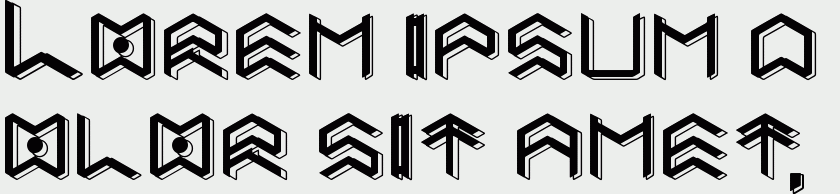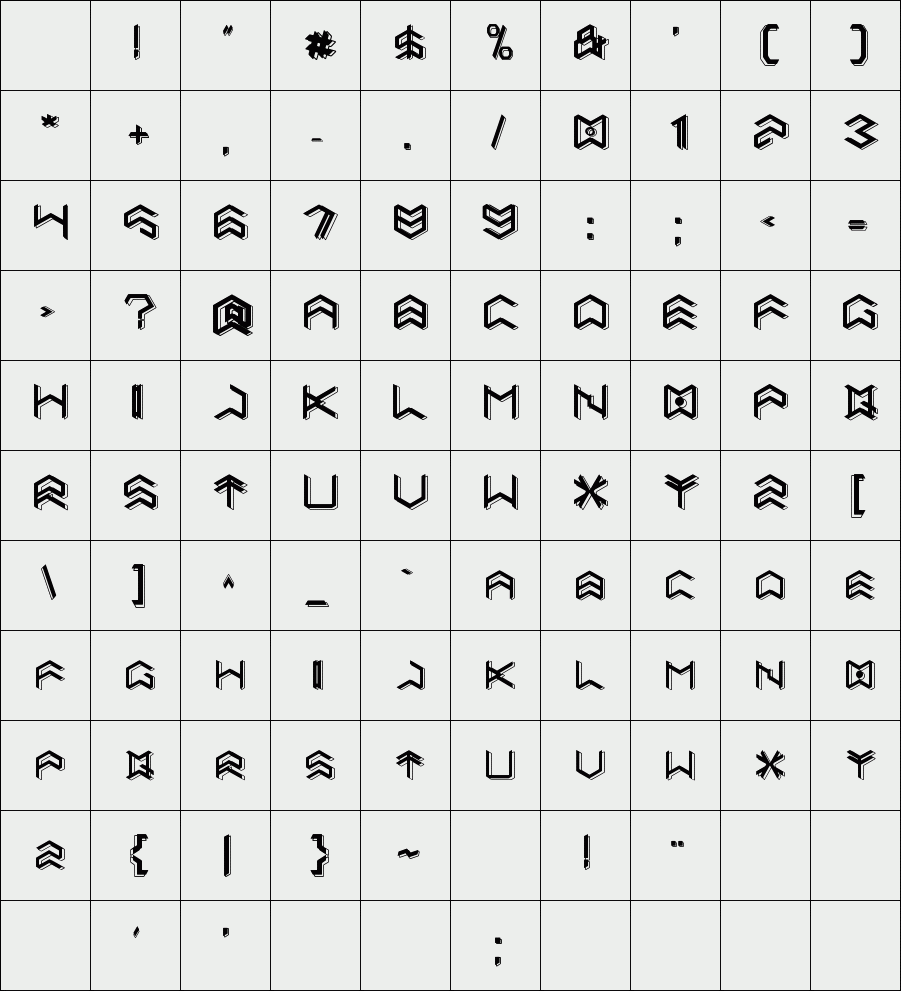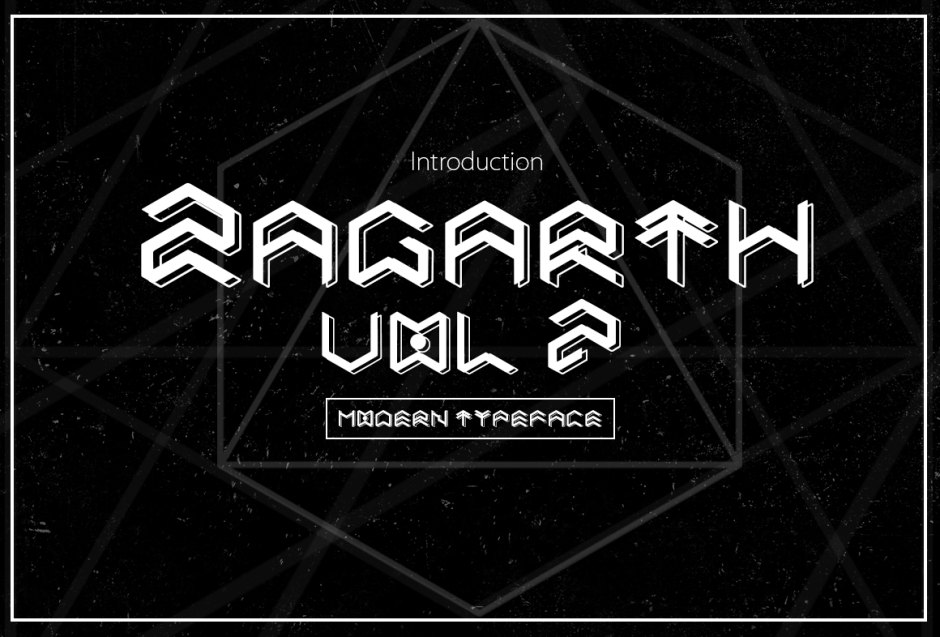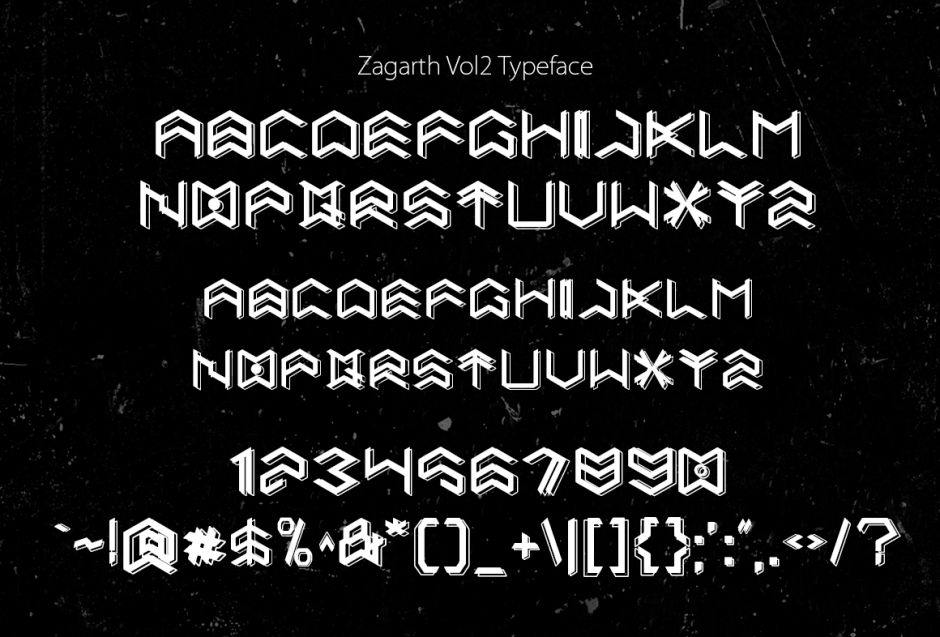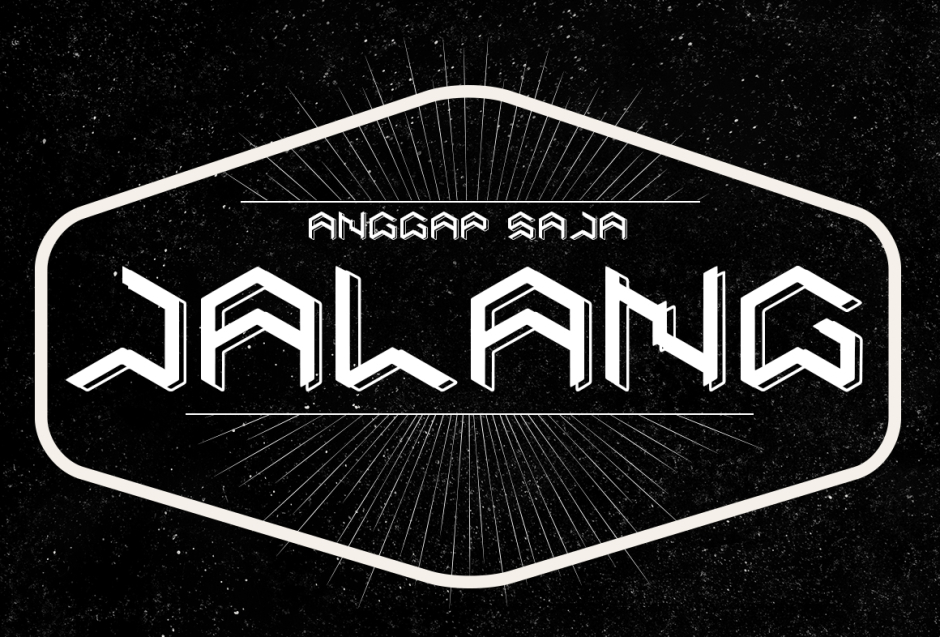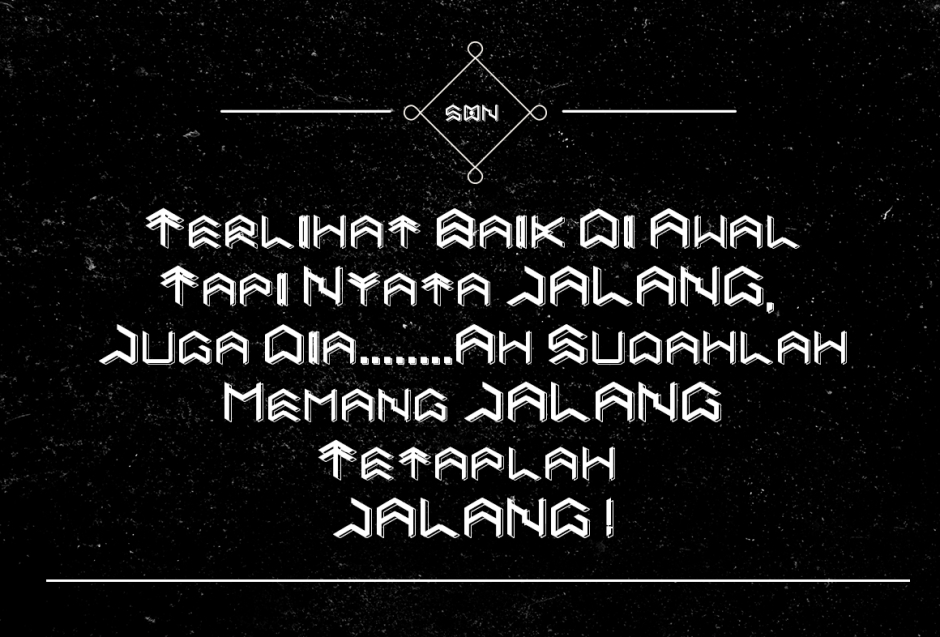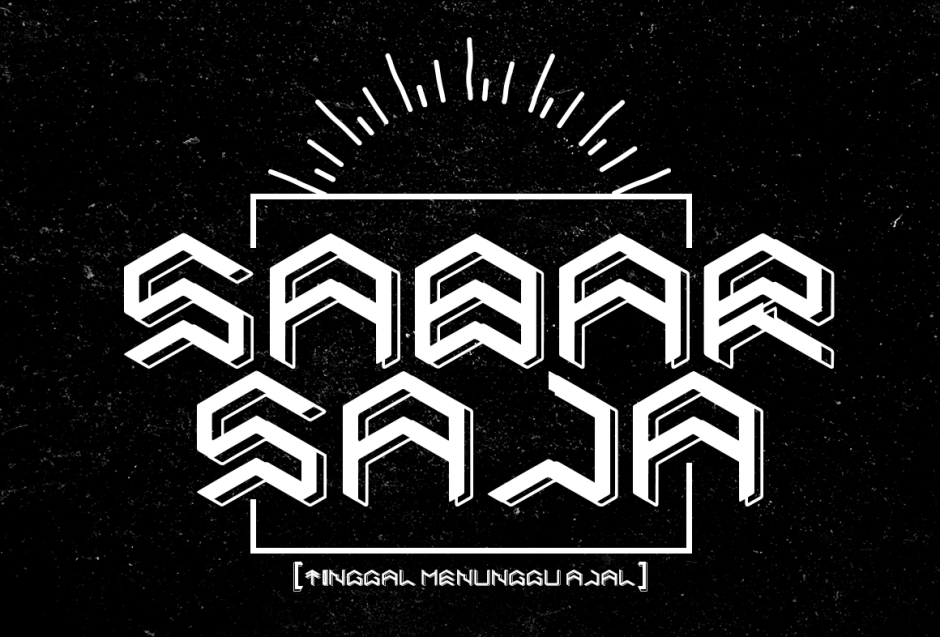
Zagarath Vol2
Zagarth Vol2 inspired by the music and urban technology. Zagarth Vol2 typeface includes a full set of uppercase, numerals and punctuation.Could help to good display, uses for labeling, clothing, music poster, film title, gigs, or cover album and etc.